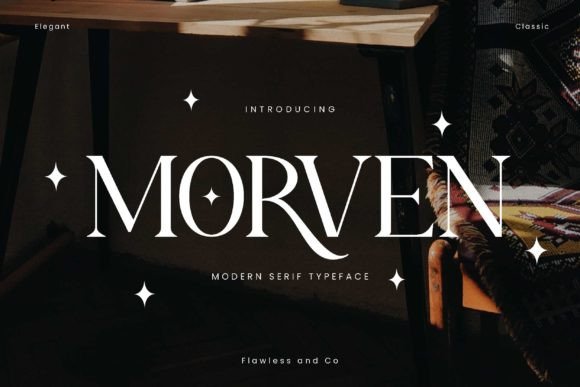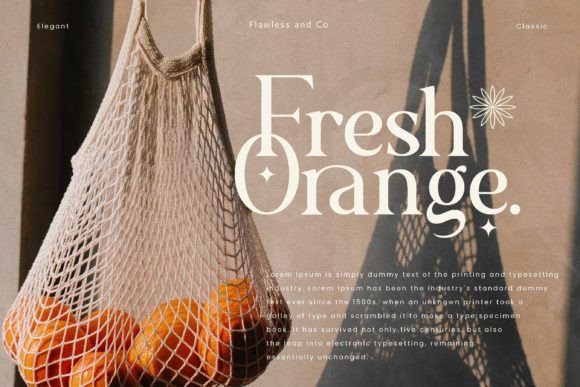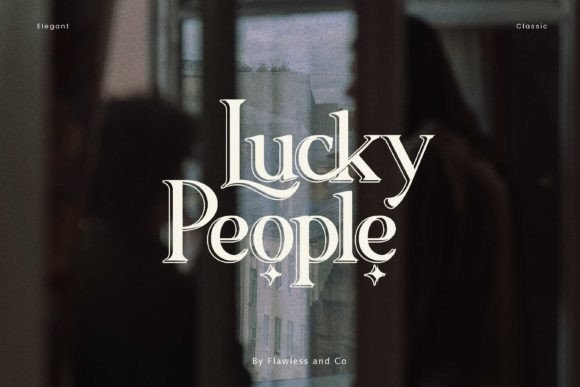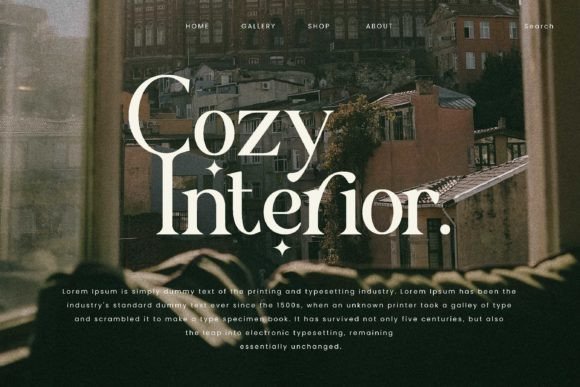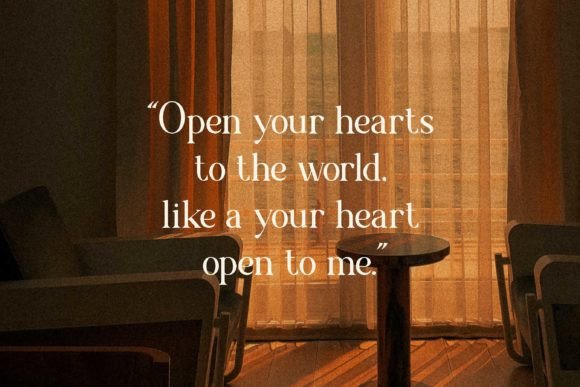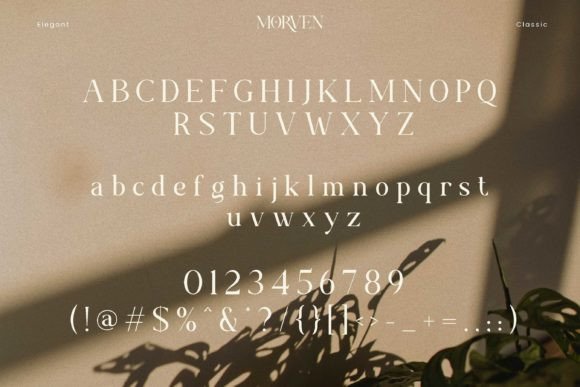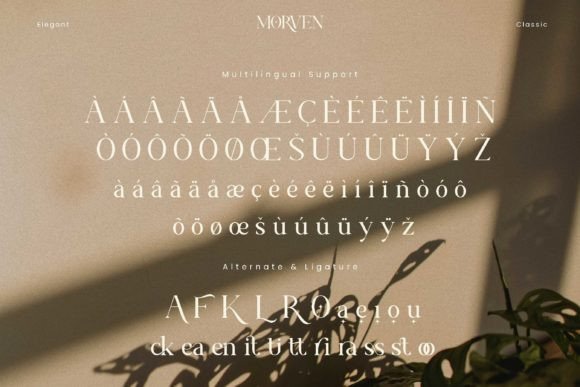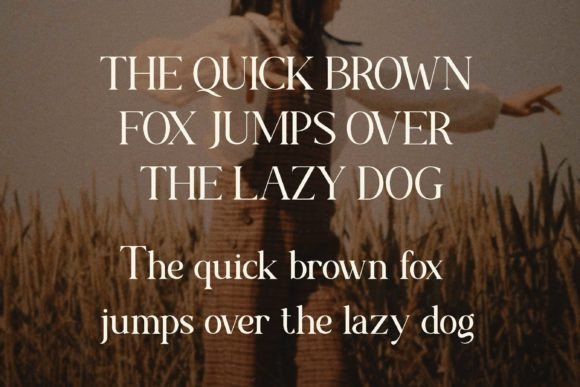
Morven Font
Morven is a modern serif font with a classic and elegant typeface. This versatile font is perfect for a variety of design projects, from branding and advertising to editorial layouts and more. This font includes a full set of uppercase and lowercase letters, as well as numerals and punctuation marks.